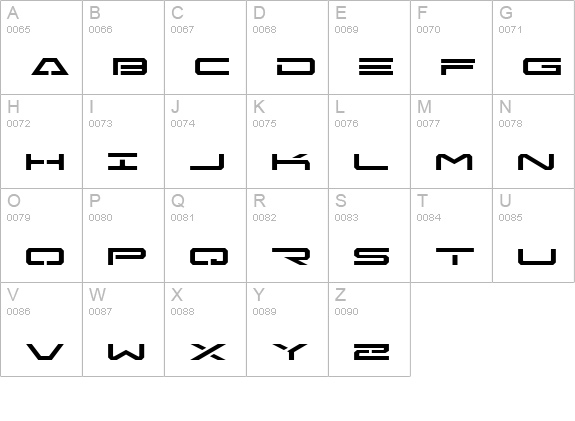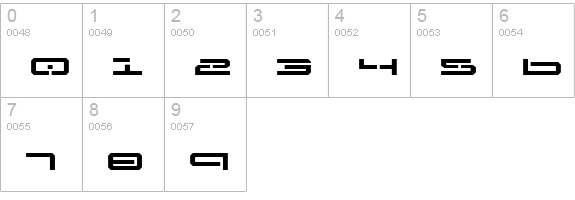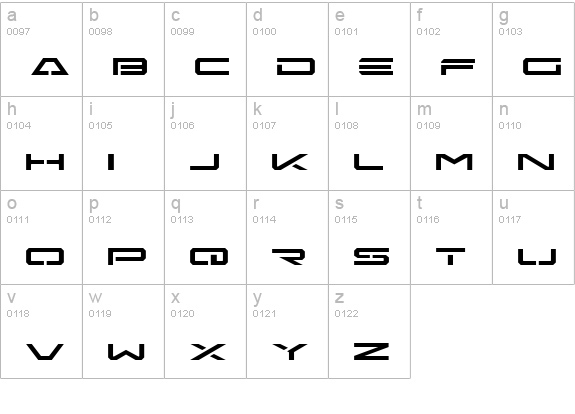
Free Agent Expanded is a distinctive, extended-width variant in the Free typeface family \xE2\x80\x94 well suited to design and typography projects.
Introducing Free Agent Expanded font, a sleek and modern typeface that exudes sophistication and versatility. This font offers a perfect balance between professionalism and creativity, making it suitable for a wide range of design projects. With its clean lines and bold presence, Free Agent Expanded font commands attention and leaves a lasting impression. What sets Free Agent Expanded font apart is its unique blend of elegance and edge, making it a standout choice for both print and digital designs. Whether you're working on branding materials, advertising campaigns, or editorial layouts, this font will elevate your work to the next level. And the best part? Free Agent Expanded font is freely available to download at FontsMarket.com, allowing you to access this premium typeface at no cost. Don't miss out on the opportunity to enhance your designs with the distinctive charm of Free Agent Expanded font.